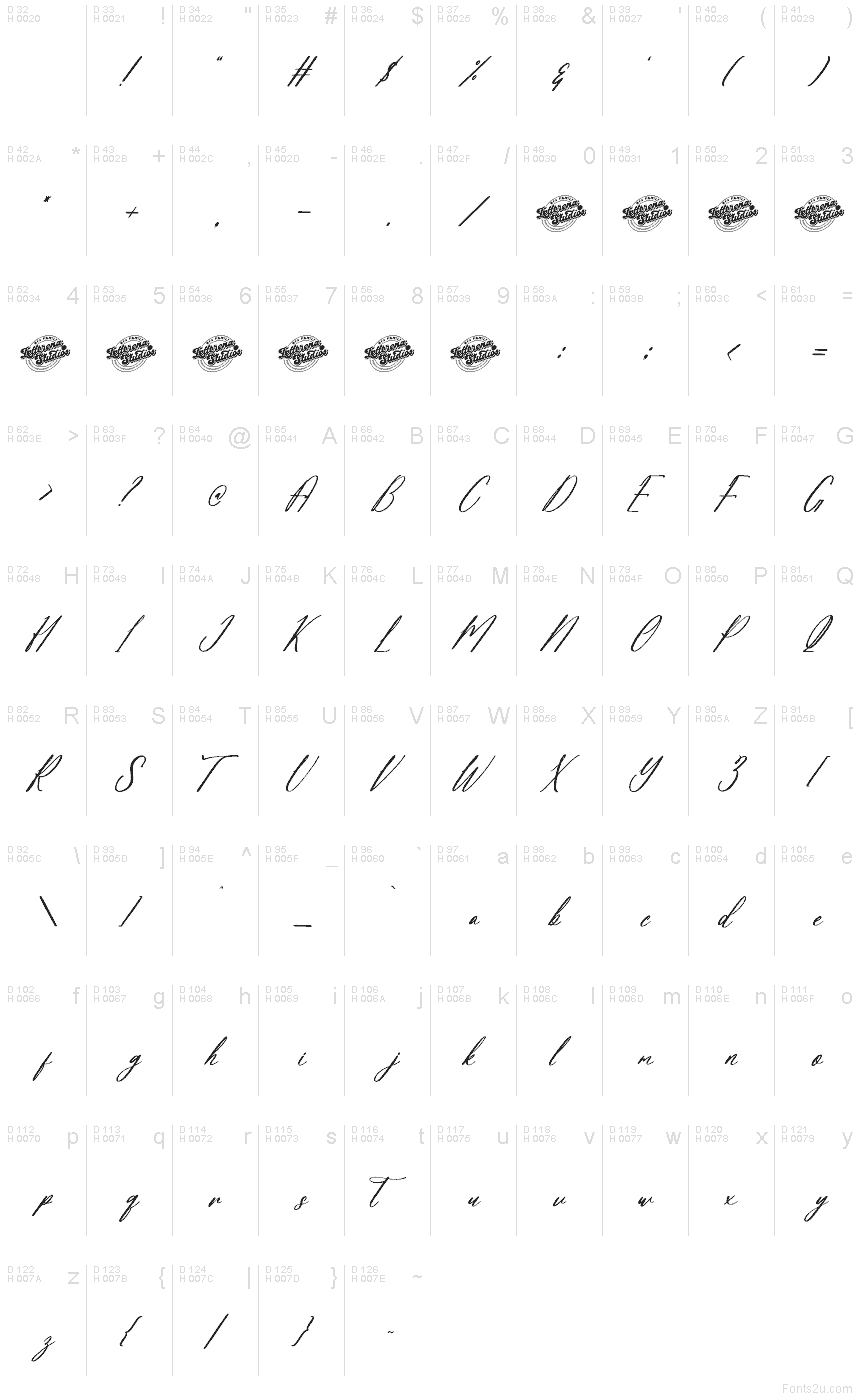
Marstezio DEMO VERSION Italic
Marstezio Italic font by Letterena Studios is a free handwritten typeface that fixes a familiar script headache: elegance without fuss. Its quick, slanted strokes feel inky and alive, yet the spacing stays open, so words breathe and stay readable on small tags or big headlines. The Marstezio family’s italic cut flows with smooth connections and light texture, giving you that polished “signature” look without turning into a tangle.
Using Marstezio Italic, you’ll get effortless results for wedding invitations, boutique logos, beauty packaging, social quotes, menu headers, thank-you cards, and watermark signatures. The rhythm is steady and confident, so compositions feel tidy even when you stack lines. This free font pairs beautifully with a clean, minimalist sans; set Marstezio for names or headlines and let the sans handle details at smaller sizes.